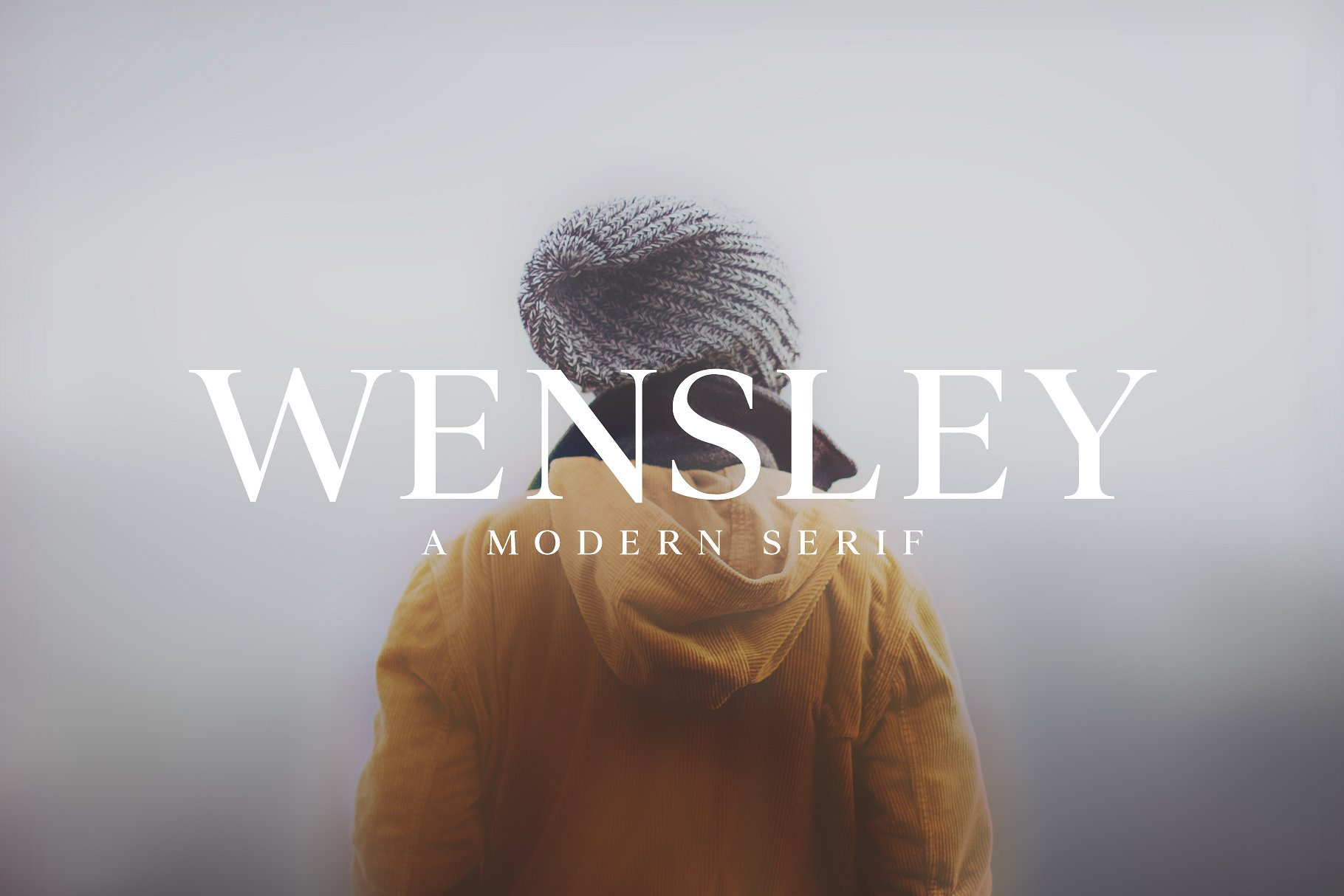
Wensley Modern Serif Font Family
Wensley is a modern high-class serif font typeface. It includes all basic glyphs with Non-English characters. This font will pair beautifully with the script, signature or handwriting style. Wensley is perfect for headlines, titles, magazines headings, logo's, presentations, posters, name card, web layouts, invitations, books, branding, and nearly any creative design.
- Font Weight: Regular, Italic, Light, Light Italic, Bold and Bold Italic
Wensley Font Features:
- Uppercase Multilingual Letters
- Lowercase Multilingual Letters
- Non English Characters ( Latin Extended A )